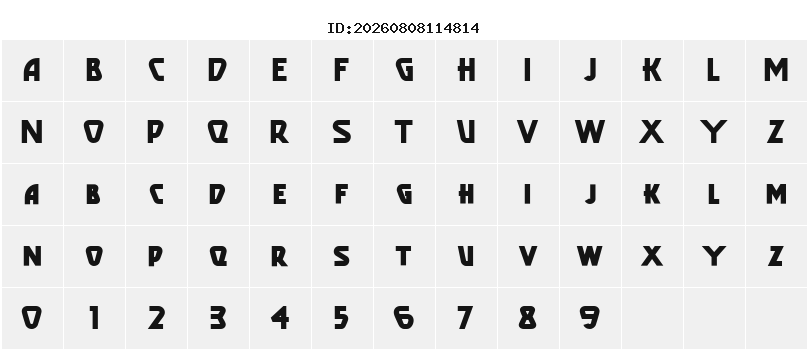
• Designer: Nick Curtis
• Manufacturer: Nick's Fonts
About Popular Cafe NF.ttf
Popular Cafe NF.ttf is a modern, elegant sans-serif font designed for ultimate readability and visual harmony. Perfect for branding, headlines, web design, and print materials.